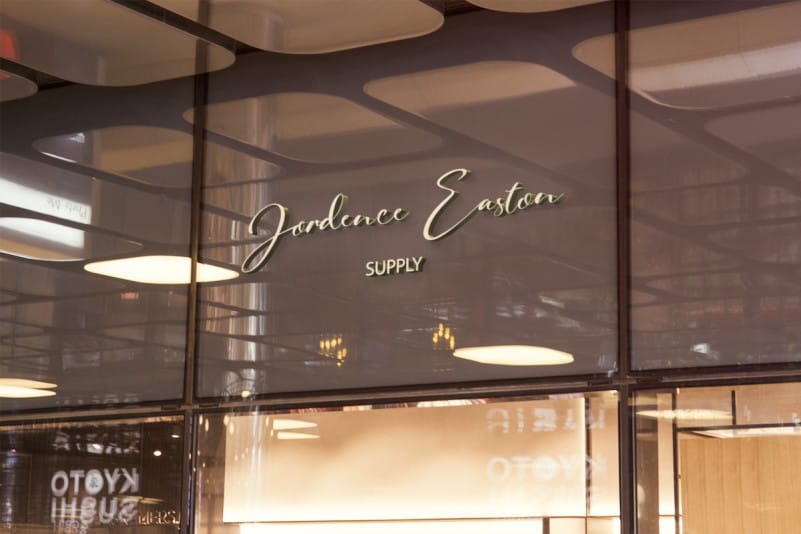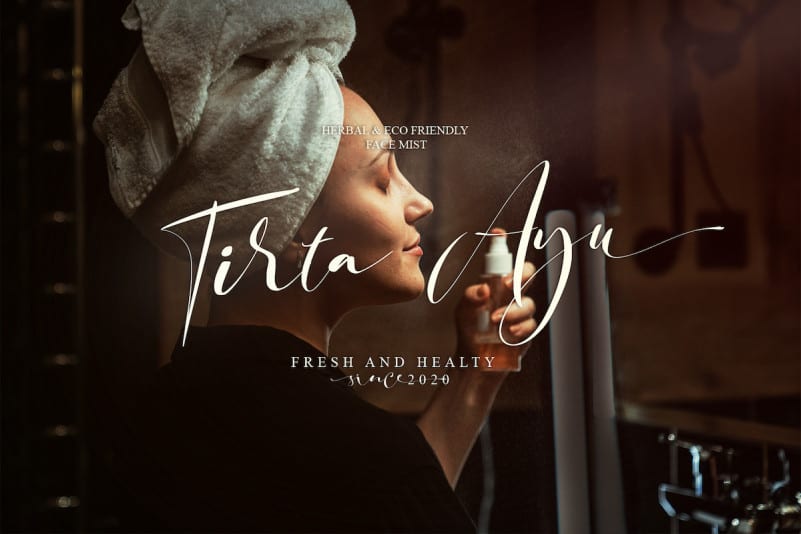
Signature Photopedia Font
Signature Photopedia Font is a unique script typeface. The idea came from incorporate some of Custom Signatures in digital projects that build a perfect strong personal branding impression.
Comes with a careful approach to make it as simple as possible to use by accessing tons of stylistic alternate letters, some unique ligature, and Beautiful swashes in OpenType features.
active it all! make your designs extraordinary.
All the features can be applied to design concepts that are at work or become your unique Signature collection.📌 Besides that, Signature Photopedia is also supported by 131 languages.🌐
It brings a beautiful and chic typeface.
Perfect for wall displays, wedding invitations, social media post logos, advertisements, product packaging,
product designs, labels, photography, watermarks, invitations, quotes, stationery, and another project that requires taste handwriting.